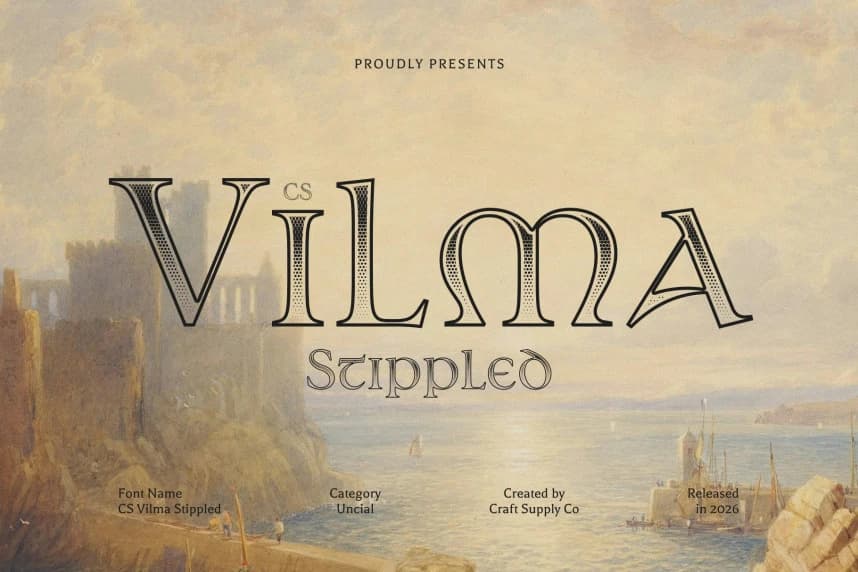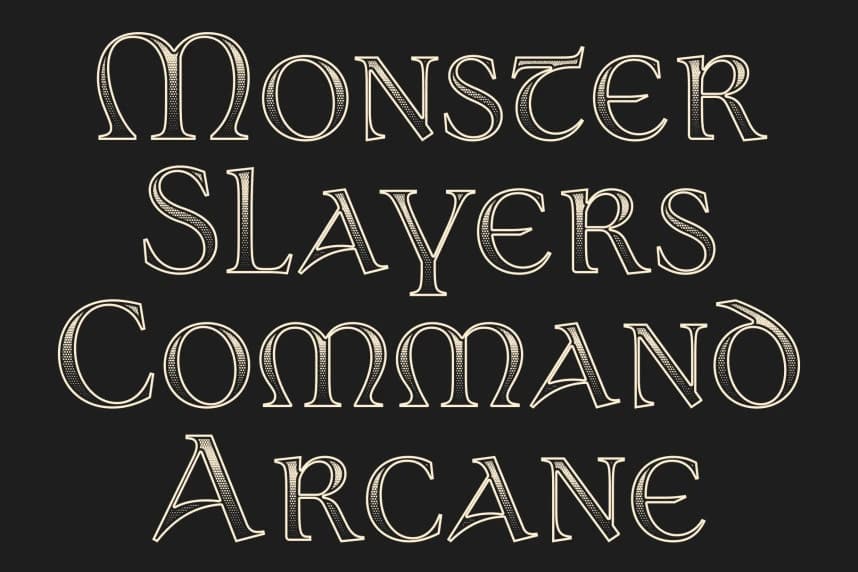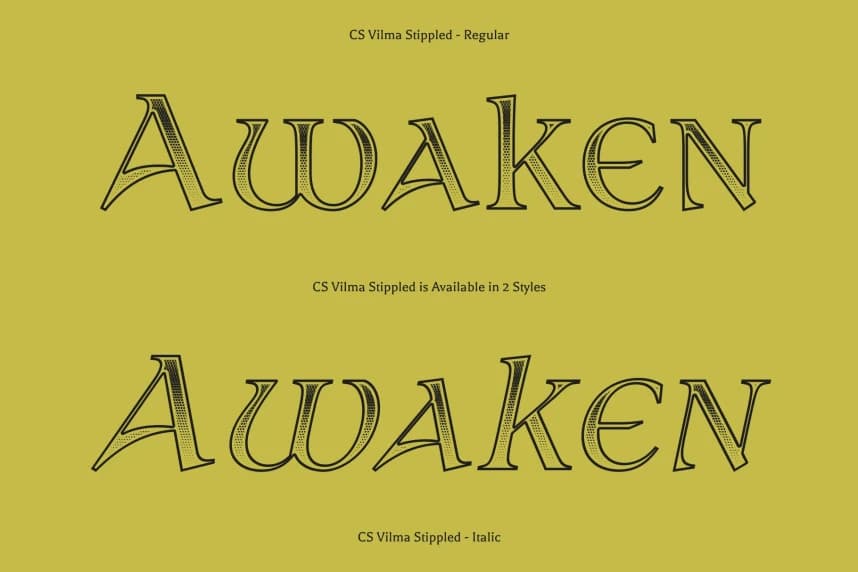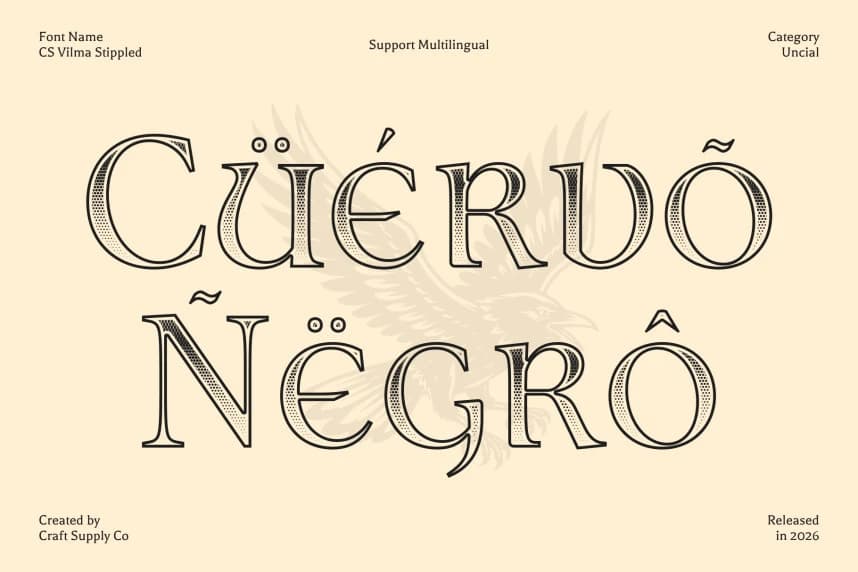
CS Vilma Stippled Font
CS Vilma Stippled Font – Uncial Font with Elegant Historical Texture Classic Uncial Style with Stippled Depth. This is a classic uncial serif display font inspired by the refined handwriting of the medieval era.